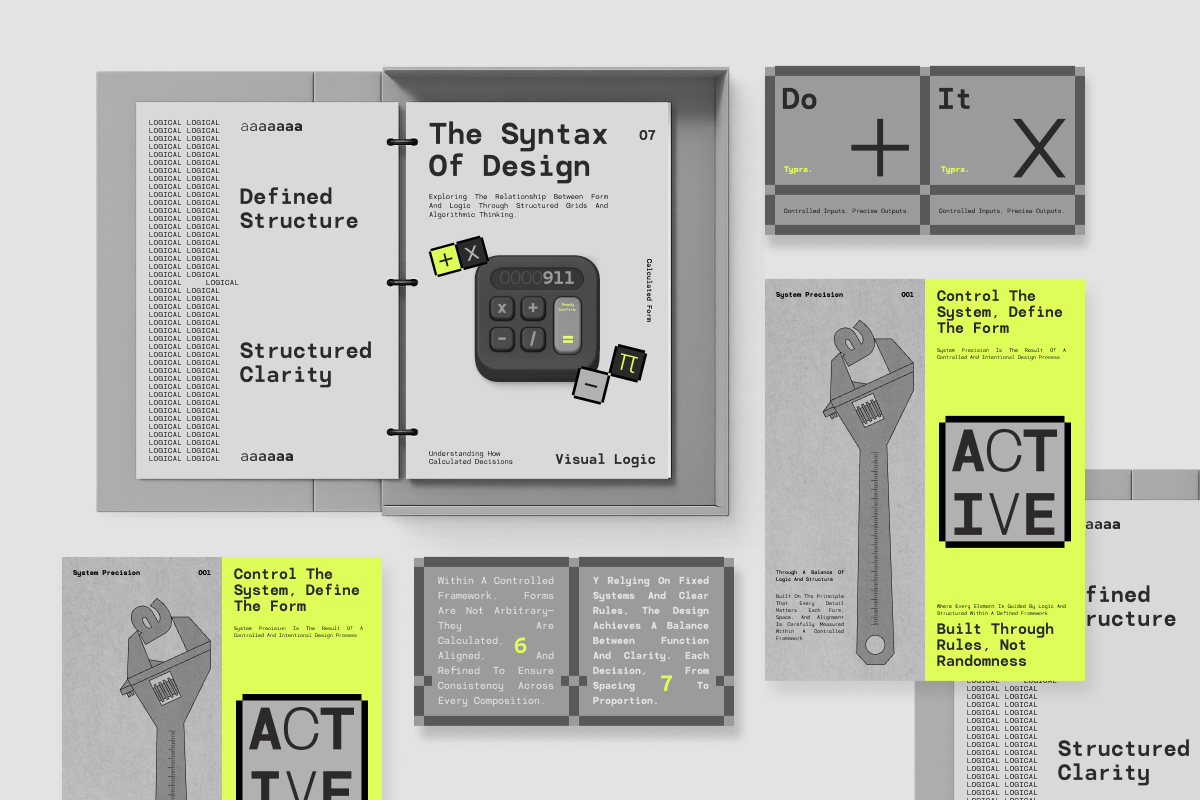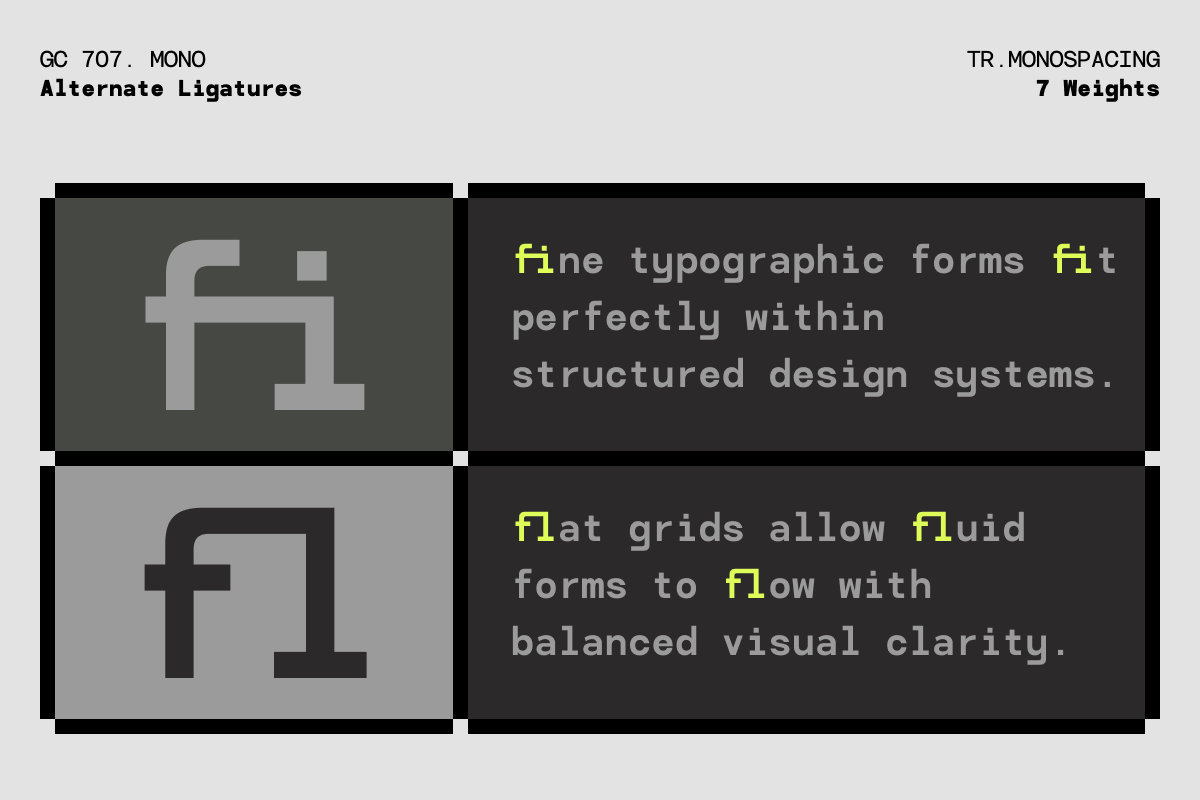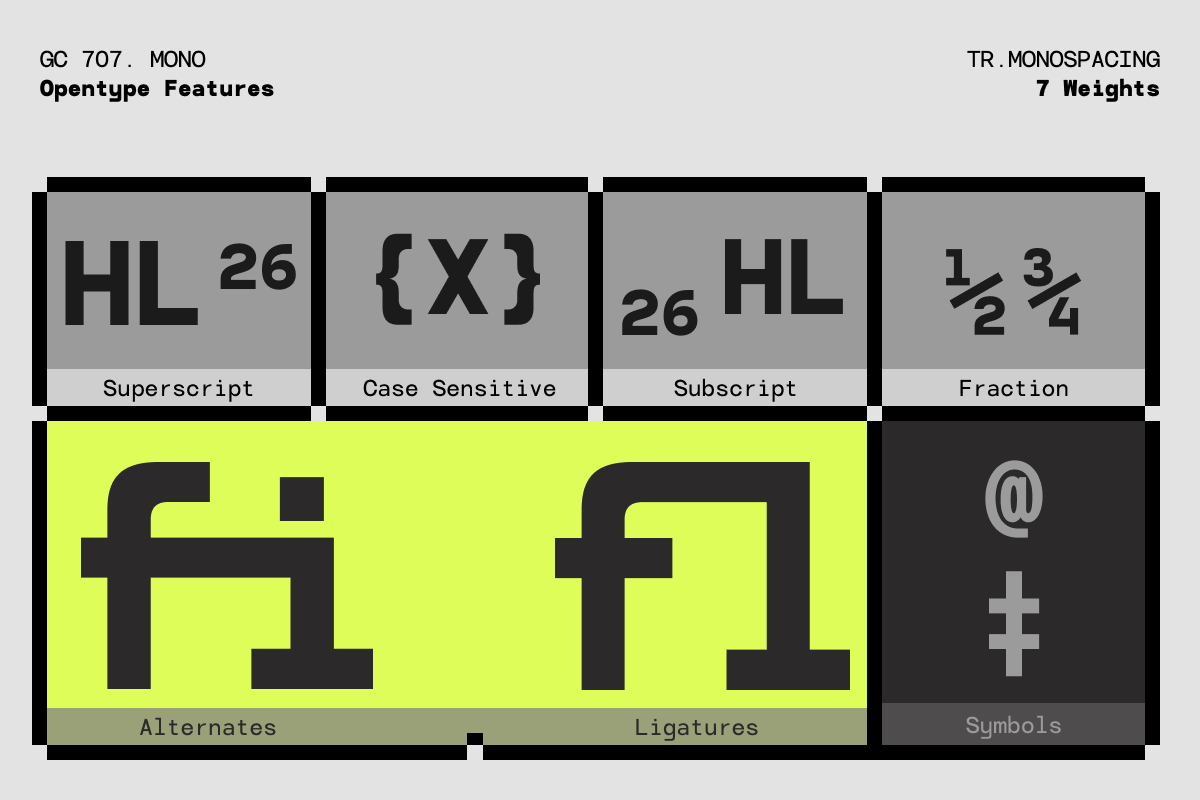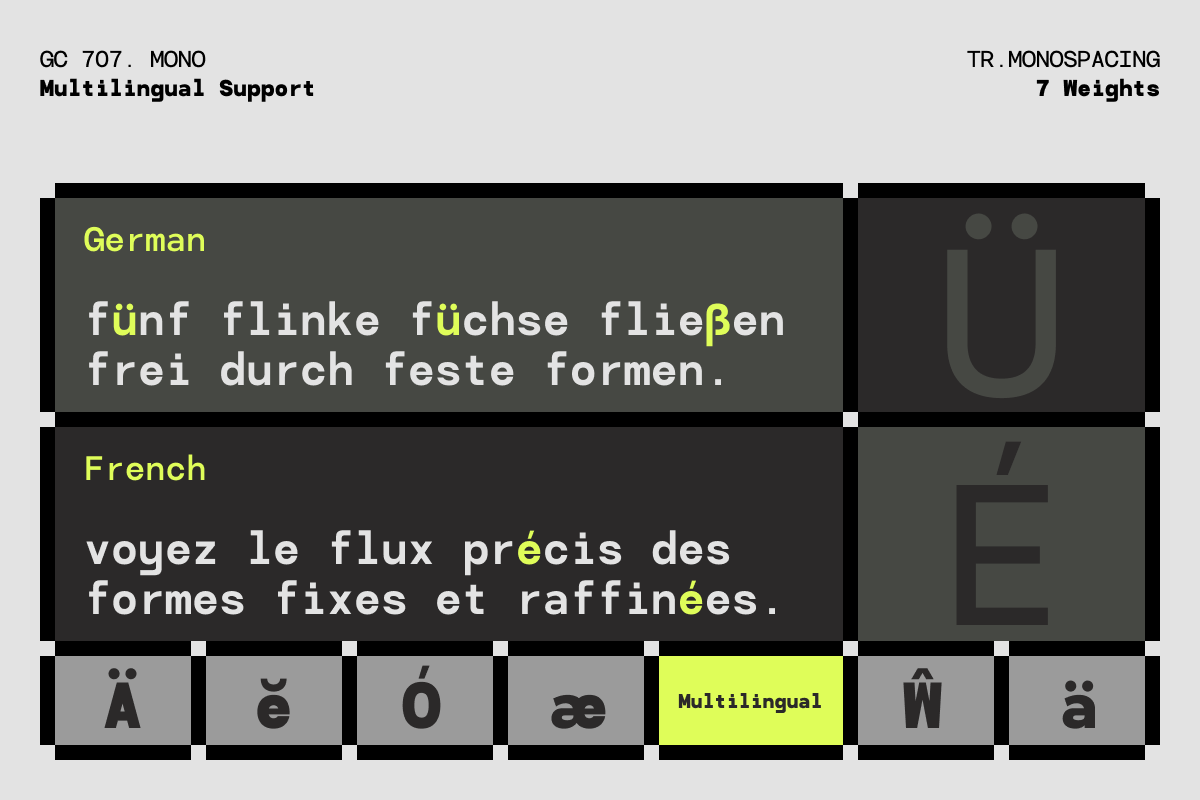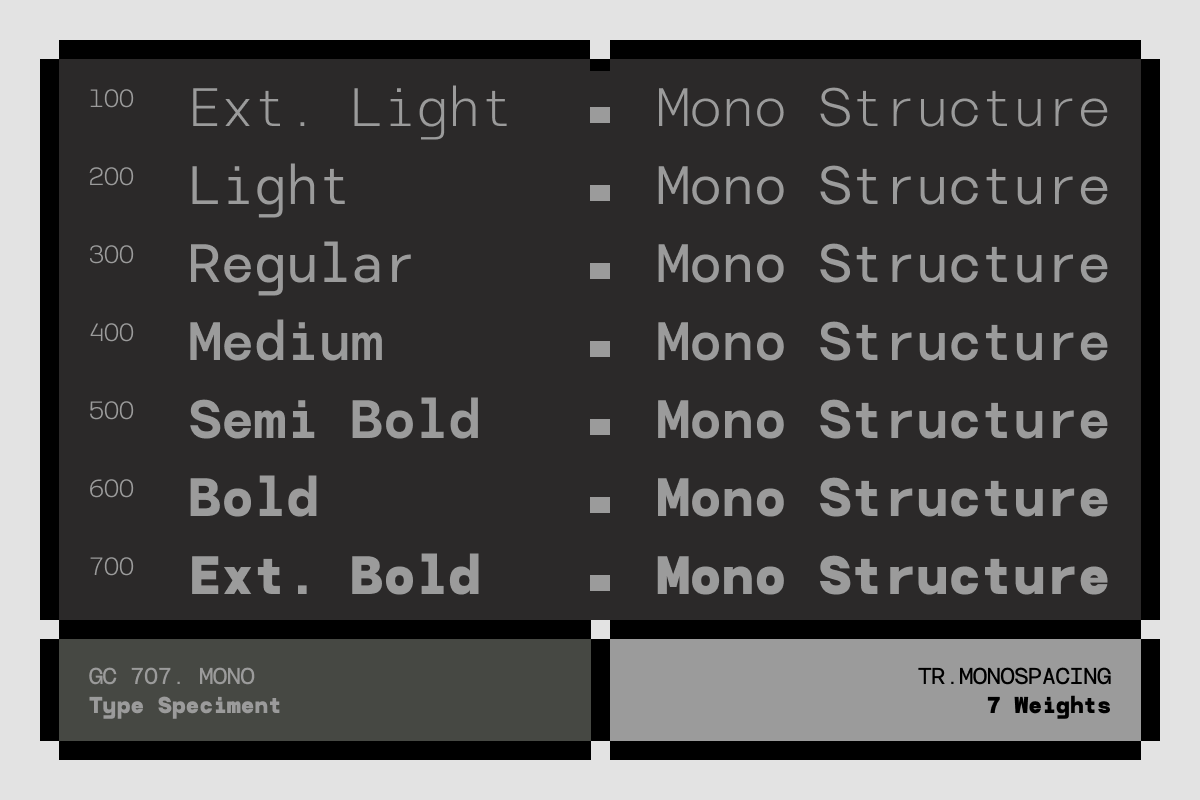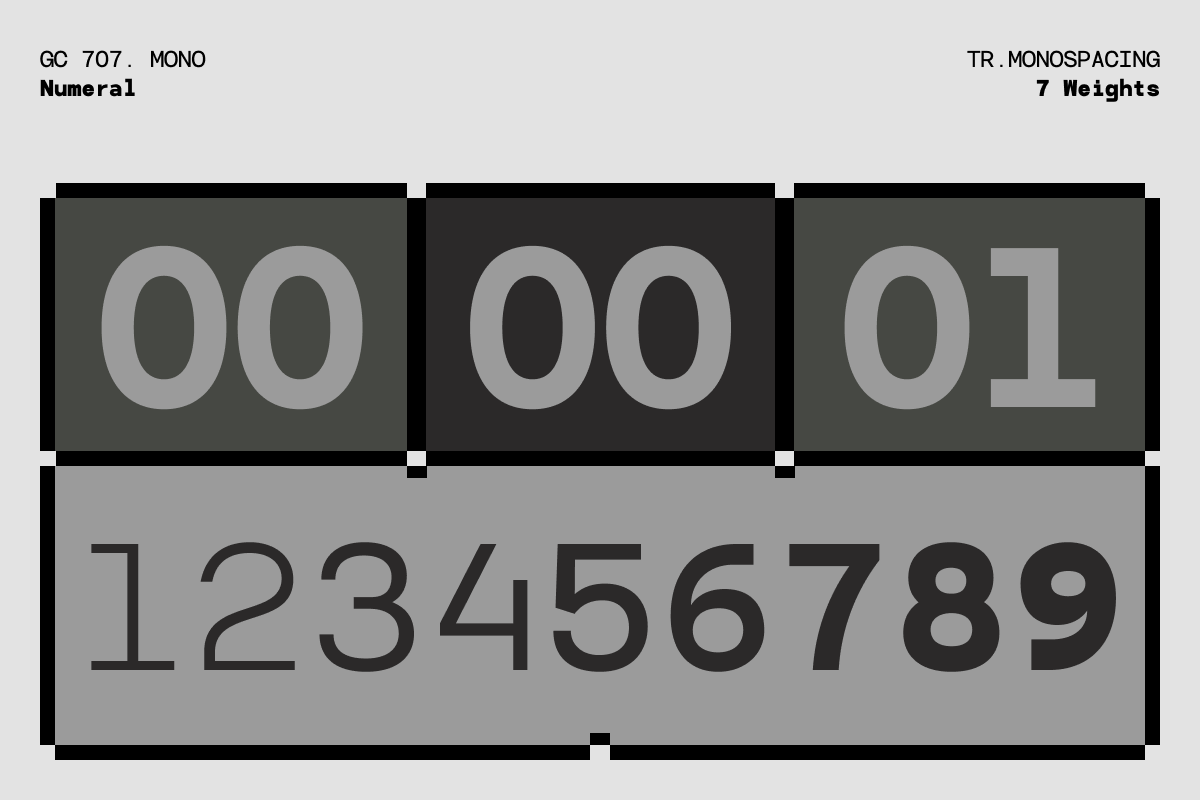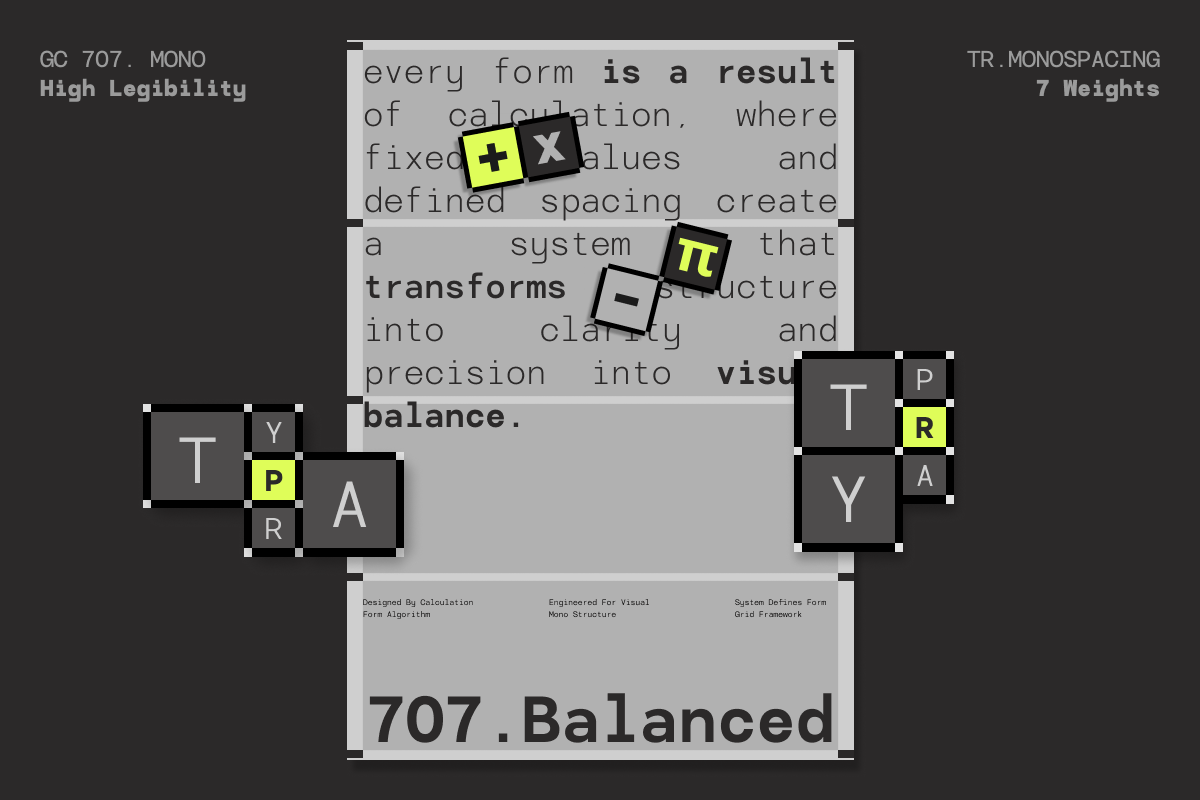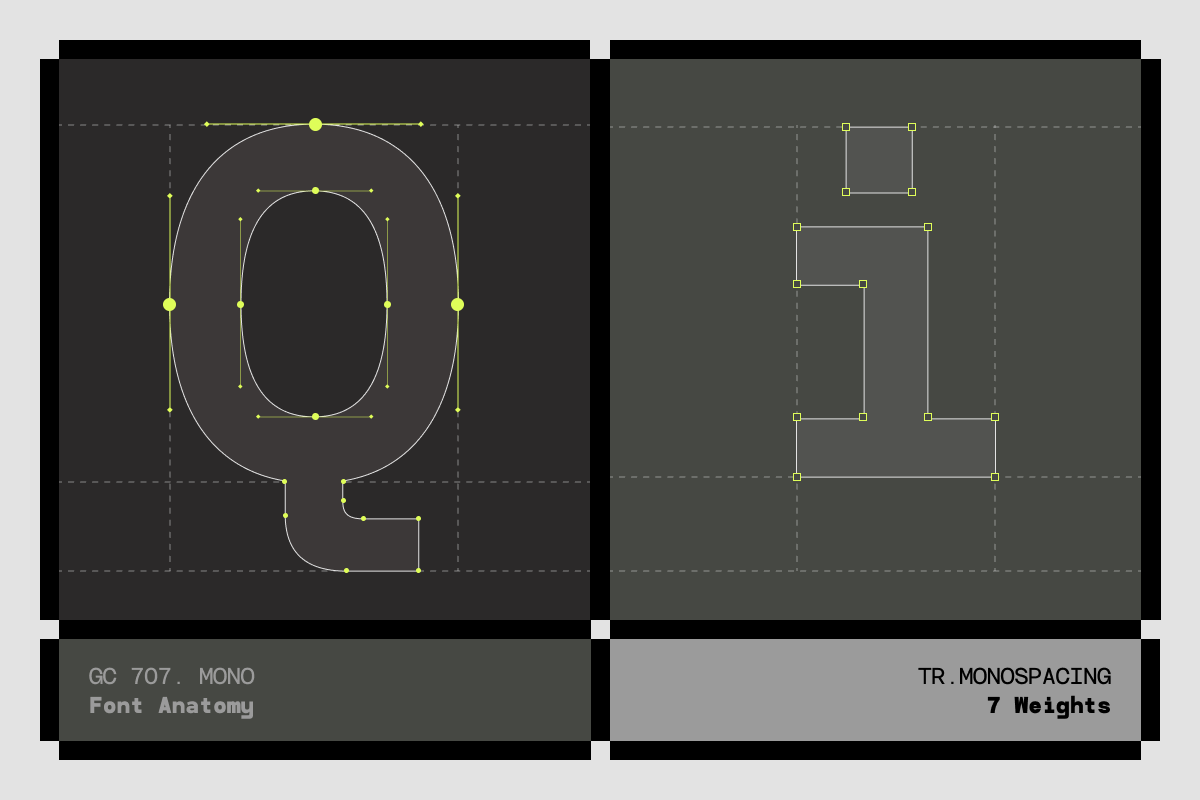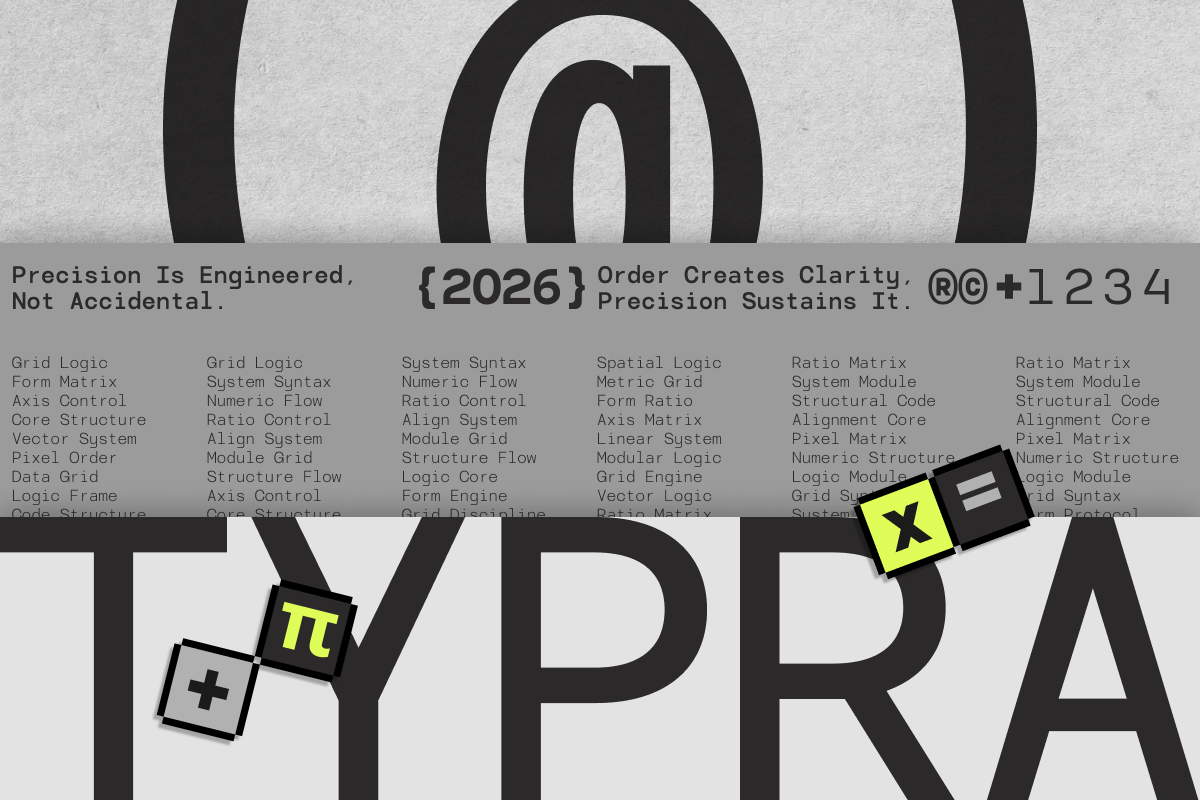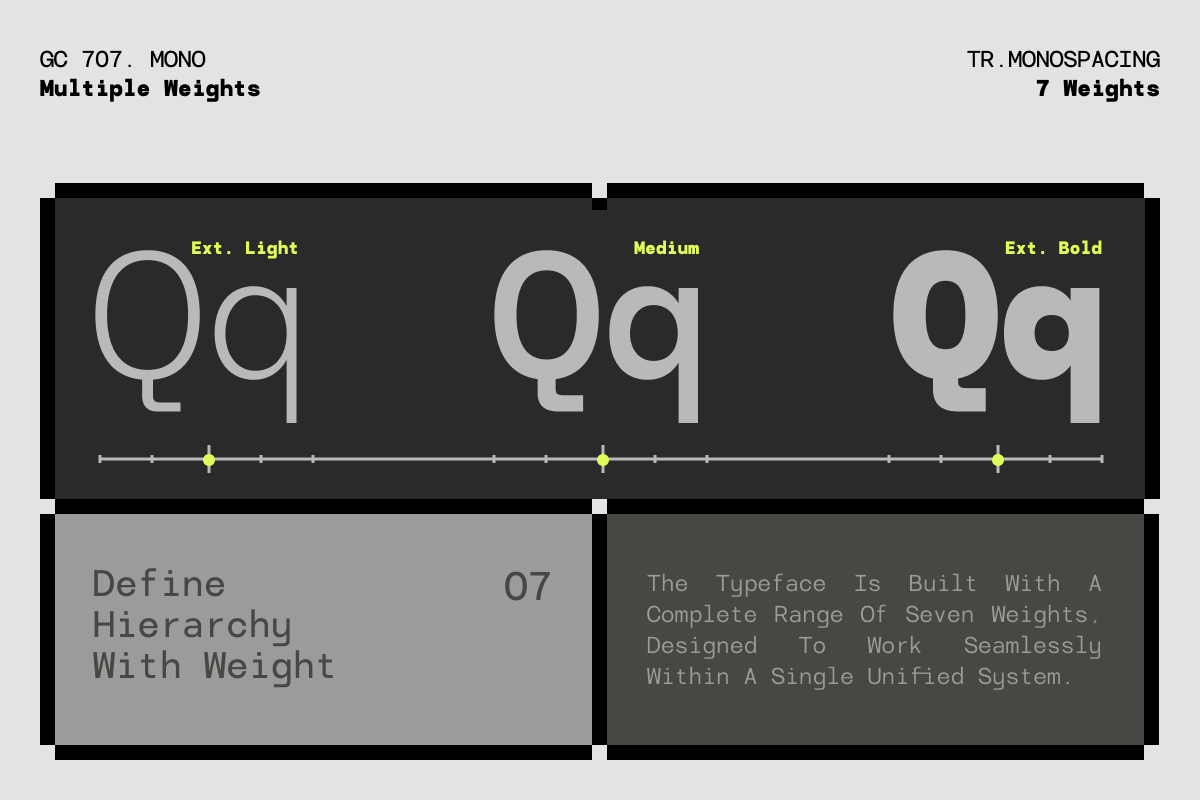
GC 707 Mono - Modern Monospace
GC 707 Mono – Modern Monospace is a contemporary monospaced sans serif typeface designed with clarity, consistency, and modern precision at its core. Built on a true monospacing system, 707 Mono delivers a structured typographic voice that feels clean, technical, and confidently modern.
With its uniform character widths, balanced proportions, and refined geometric forms—as seen in its clear and functional letterforms—GC 707 Mono creates a strong visual rhythm that enhances readability and alignment. The modern sans construction brings a sleek aesthetic while preserving the precision expected from a professional monospace typeface.
As a variable typeface with 7 weight options, GC 707 Mono offers flexible weight control, allowing designers to create seamless hierarchy while maintaining consistent spacing across every style. From interface design and coding environments to branding systems and editorial layouts, the font adapts effortlessly without losing its structured character.
Crafted for both digital and print media, GC 707 Mono combines technical functionality with contemporary design sensibilities, making it ideal for technology branding, UI design, data visualization, modern publications, and minimalist creative projects.
Variable Font (7 Weight Options)
True Monospaced Construction
Modern Sans Serif Design
Clean Geometric Letterforms
Multilingual Support (170+ Languages)
GC 707 Mono — true monospacing with modern clarity and structured precision.